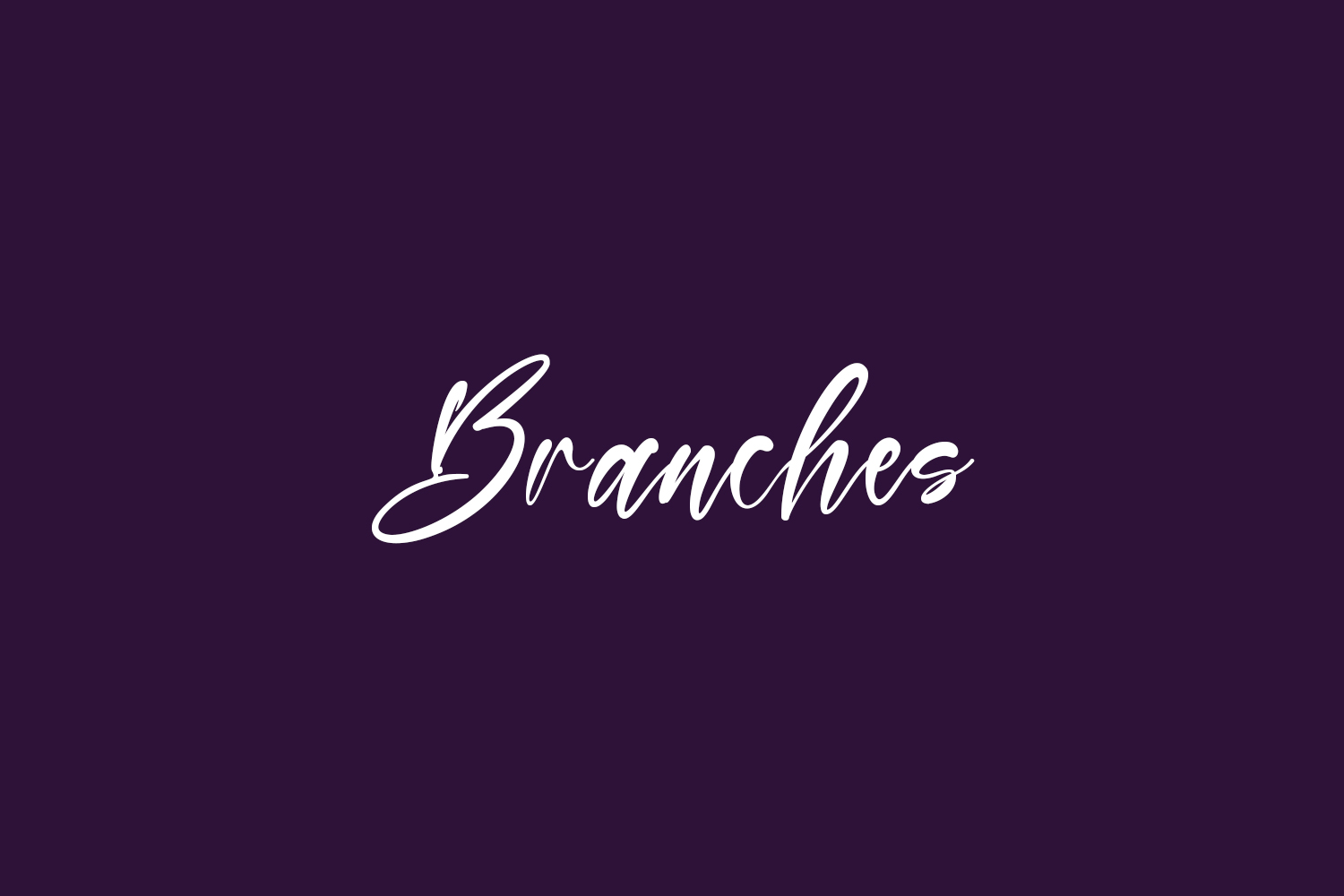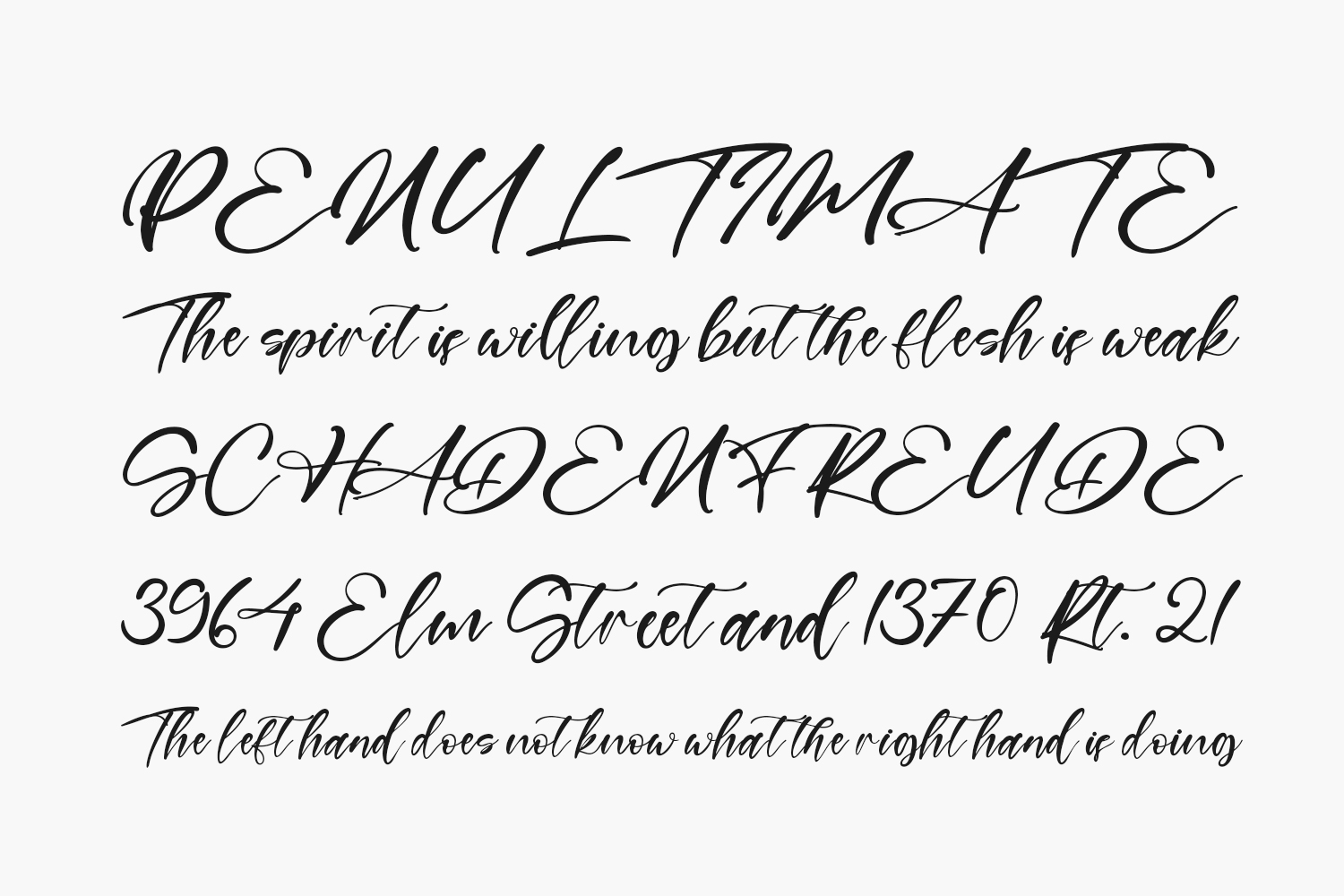
Branches Free Font is a modern and playful handwritten script font. It’s great for crafters and designers. Compatible with tools such as Photoshop and Silhouette design studio. its playfulness can make it great for creative projects. Branches Free Font was designed by Kong Font and is free for personal use only. Please purchase the full version for commercial use.